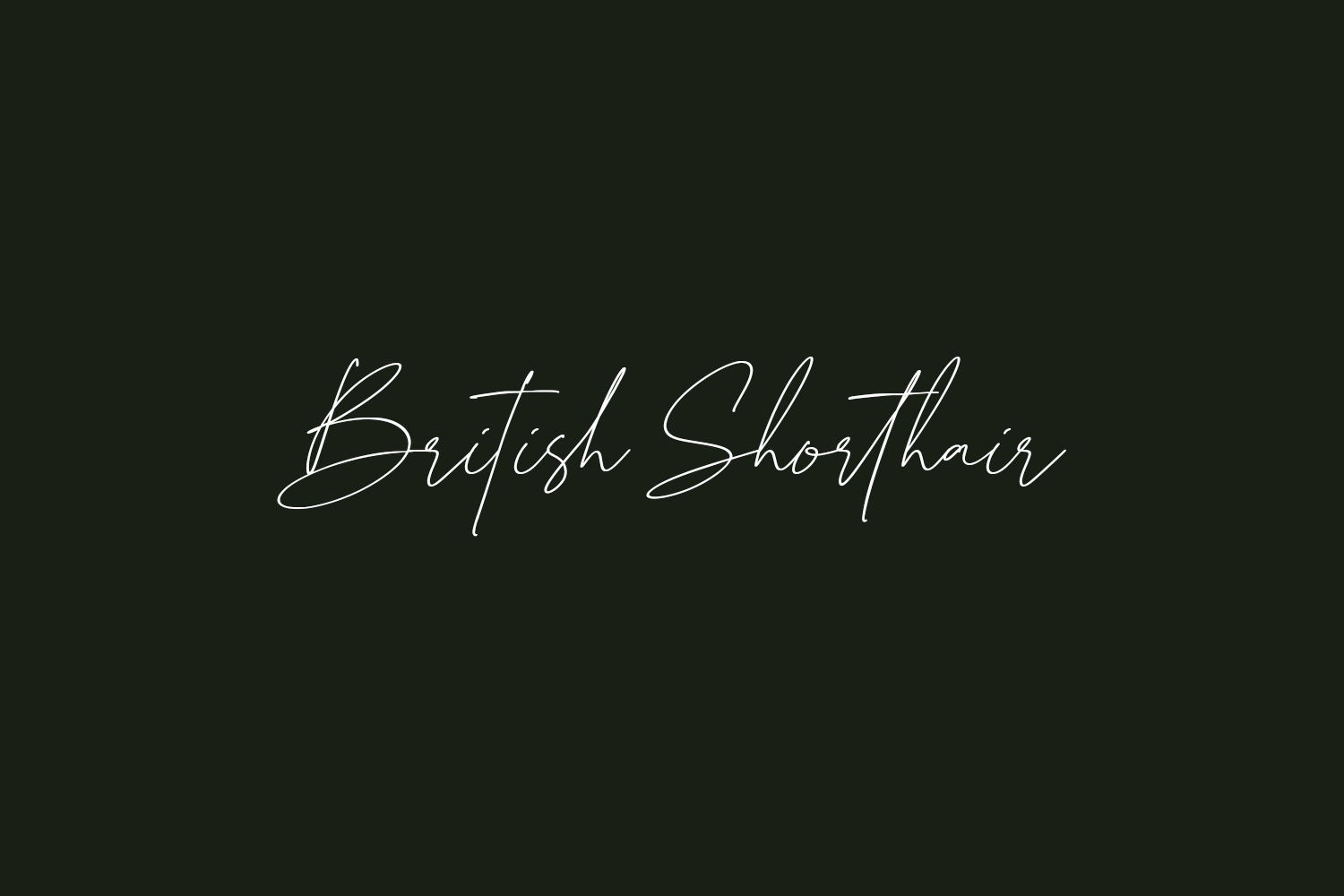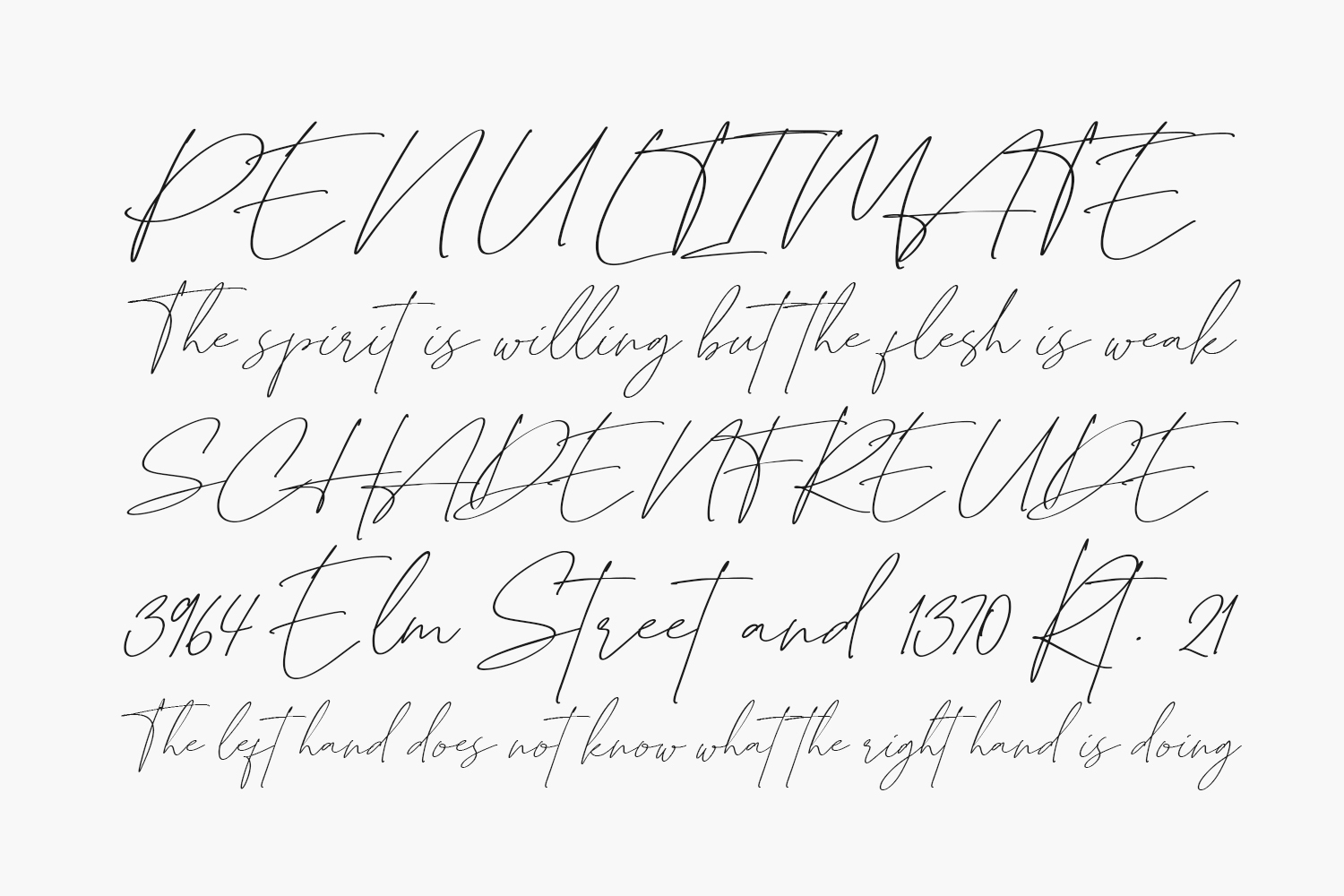
British Shorthair made from natural pen. It will make your design project more beautiful. The font is suitable for any design like branding, logo, tagline, fashion, print template, quotes, wedding and etc. British Shorthair Free Font was designed by Hanzel Space and is free for personal use only. Please purchase the full version for commercial use.